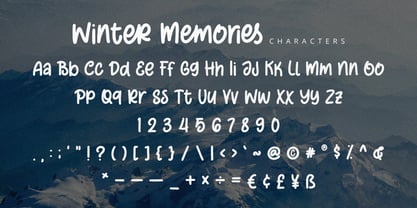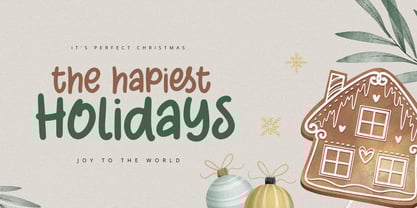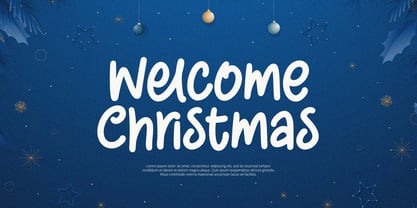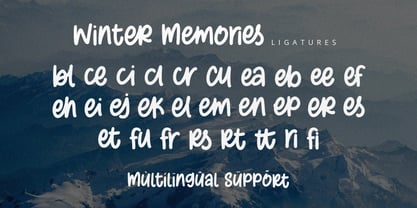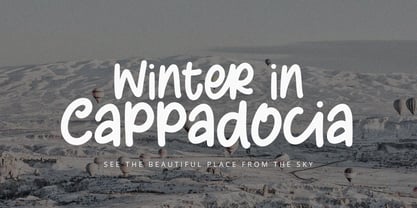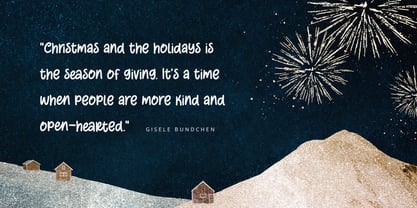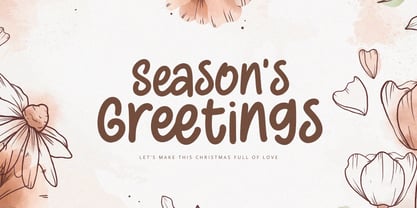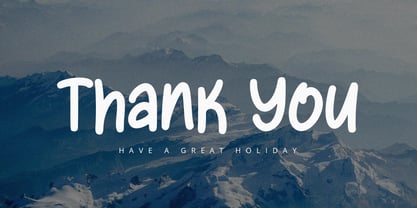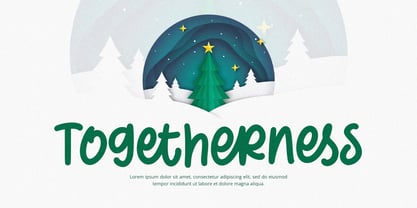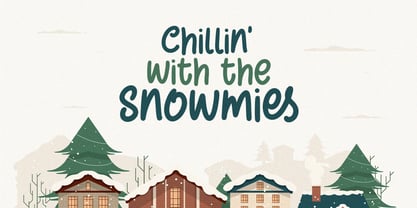
Winter Memories
by Alpaprana
The Winter Memories Font Family was designed by Nadia Salsabila and published by Alpaprana. Winter Memories contains 1 styles. More about this family
Winter Memories is a handwritten font with cute and unique style. It will be perfectly used for Branding, Logo Design, Lettering, Logotype, Clothing, Poster, magazine, packaging, posters, shopping bags, t-shirts, book covers, photography, special events and other design project.
Designers: Nadia Salsabila
Foundry: Alpaprana